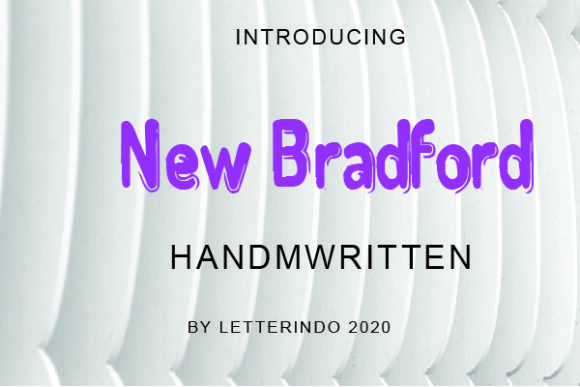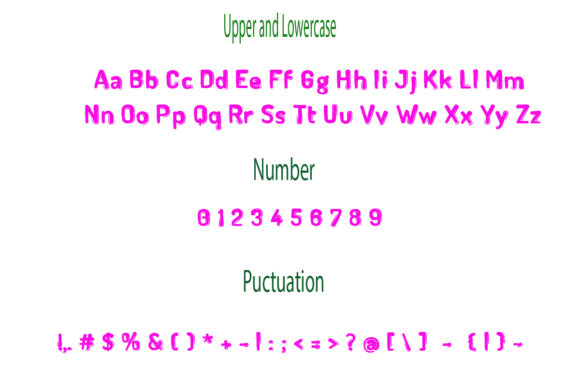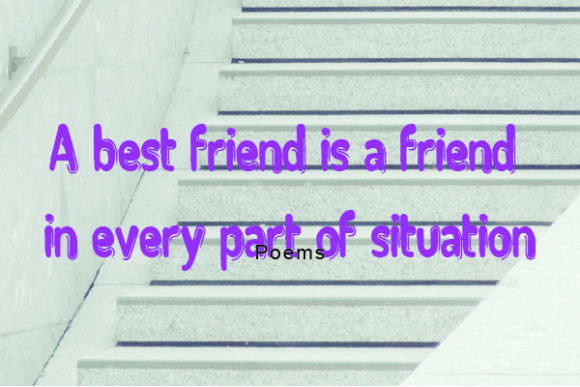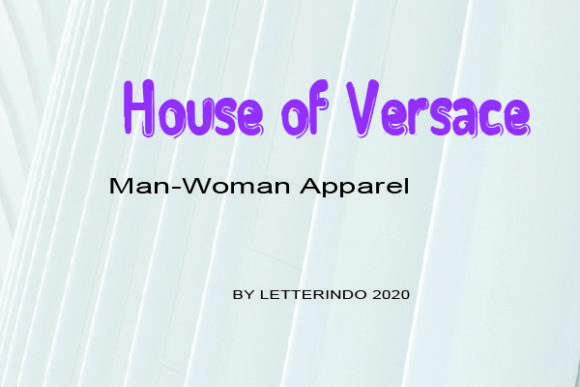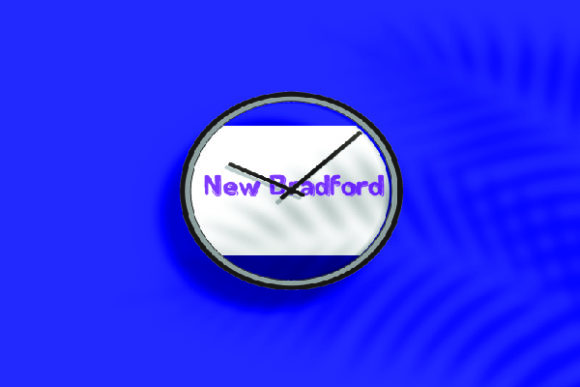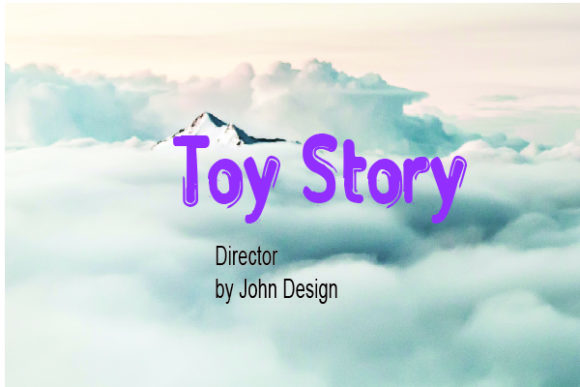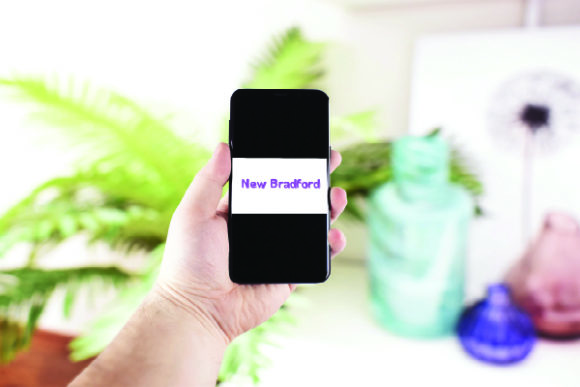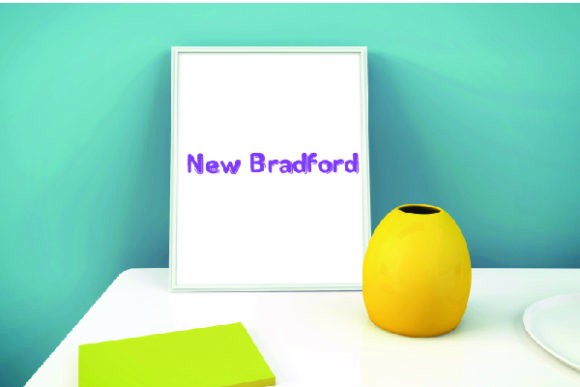
New Bradford Font
About New Bradford Font
New Bradford is a fresh and unique handwritten font. Its chunky and bold characters will make your design stand out! Add it to your portfolio and notice how your projects are elevated to the highest levels!